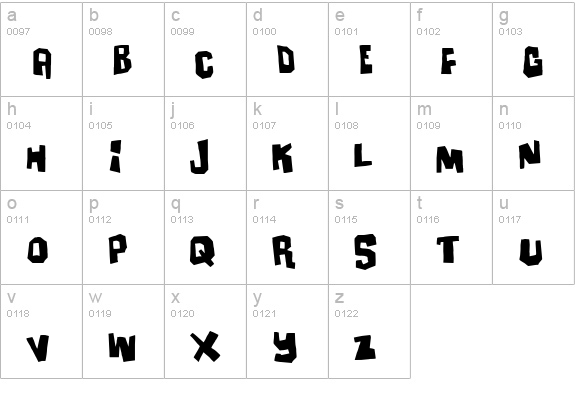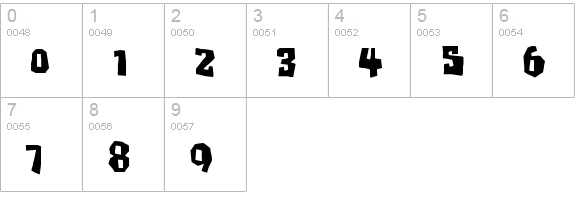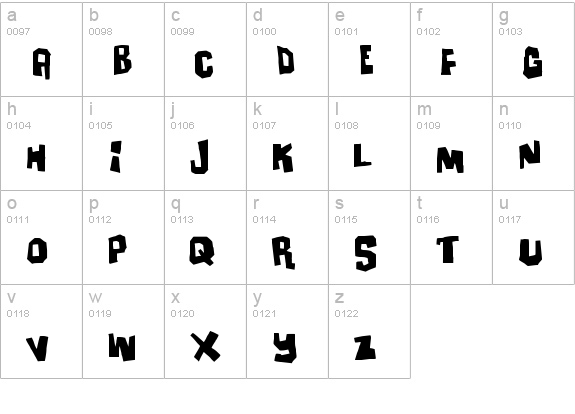
Ultimatum Font Details
Introducing Ultimatum, a stunning font that embodies the perfect blend of modern elegance and timeless sophistication. Crafted with meticulous attention to detail, this typeface exudes a sense of confidence and power that is sure to captivate any audience. With its sleek and sharp letterforms, Ultimatum makes a bold statement wherever it is used. Whether it's for a logo, branding, or editorial design, this font effortlessly commands attention and leaves a lasting impression. What sets Ultimatum apart is not only its impeccable design but also its accessibility. We are thrilled to announce that Ultimatum is available for free download exclusively at FontsMarket.com. This means that you can now enhance your projects with this exceptional font without any cost or limitations. Versatility is another key feature of Ultimatum. With multiple weights and styles to choose from, you have the freedom to create a wide range of designs, from sleek and minimalistic to bold and dramatic. Whatever your creative vision may be, Ultimatum provides the tools to bring it to life. Designed with usability in mind, Ultimatum is highly legible even at small sizes, making it suitable for a variety of applications. Whether it's for digital or print media, this font guarantees clarity and readability, ensuring that your message is effortlessly conveyed to your audience. So why wait? Unleash your creativity and elevate your designs with the exquisite Ultimatum font. Download it for free at FontsMarket.com and witness the transformative power of this exceptional typeface. Whether you're a professional designer or a seasoned enthusiast, Ultimatum is the perfect choice to take your projects to new heights.